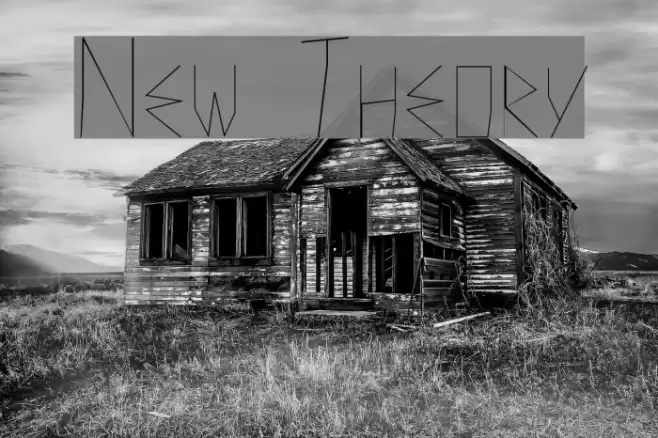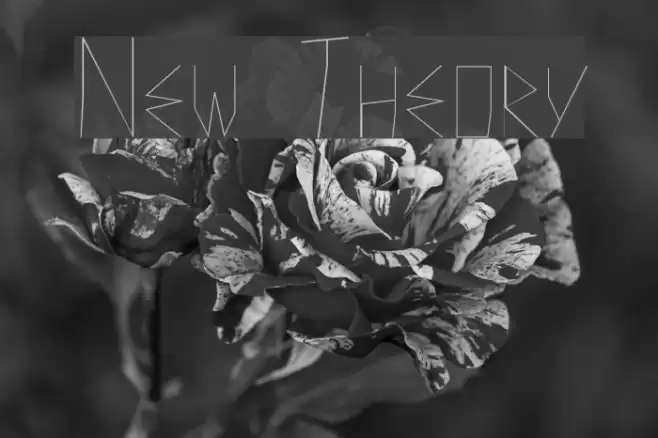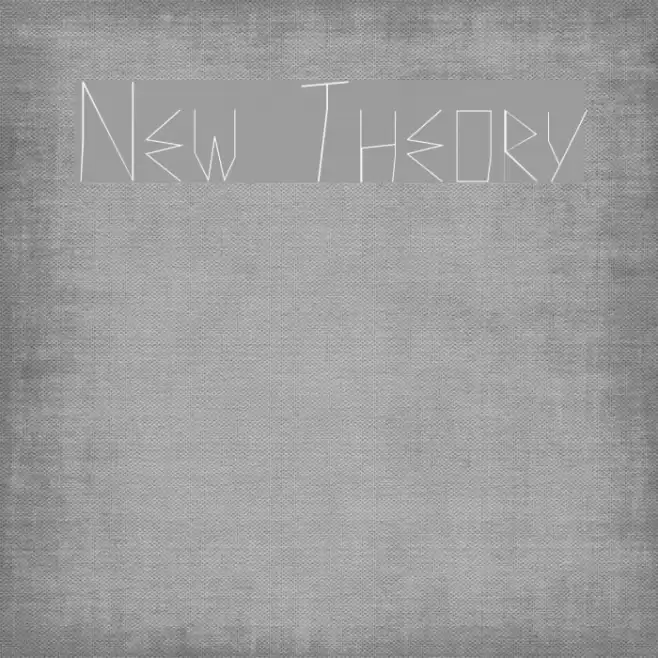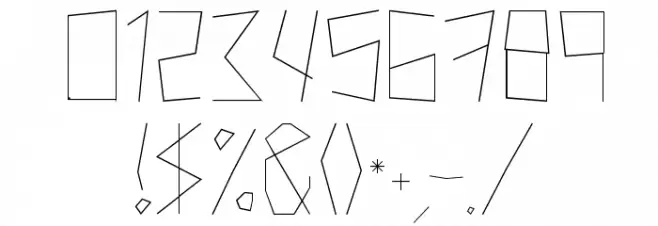
New Theory Font
New Theory Description
This font features a unique, geometric design with angular lines and sharp edges, creating a modern and futuristic appearance. The characters are constructed with thin, consistent strokes that give a sense of precision and minimalism. The uppercase and lowercase letters maintain a uniform height, enhancing the font's sleek and streamlined look. Numbers and special characters follow the same geometric style, ensuring cohesion across all elements. This font's distinct style makes it suitable for projects that require a contemporary and edgy aesthetic.
A geometric, modern font with angular lines and a sleek, futuristic style from Uncategorized fonts.
- Proposed Projects: Ideal for tech branding, modern art posters, futuristic designs, and digital media projects.